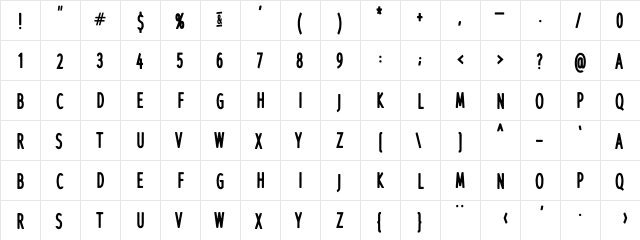
Polis Regular
Design Context for Polis Typeface
Polis is a composed and adaptable typeface that performs quietly and consistently across a wide range of design contexts.